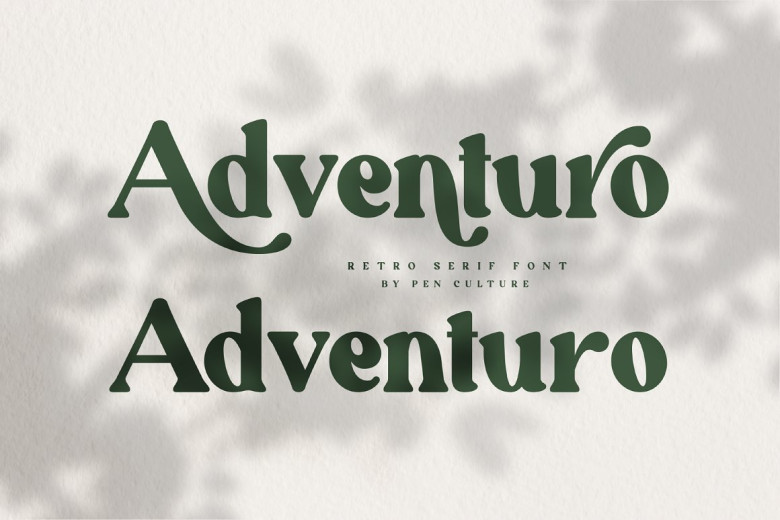
Adventuro Font
Adventuro is retro serif font. This font has a retro look also has a modern feel. This font has more than 20 alternates that will help you in project design such as branding, logos, packaging, magazine imagery, posters and many more.
Adventuro Retro Serif Font